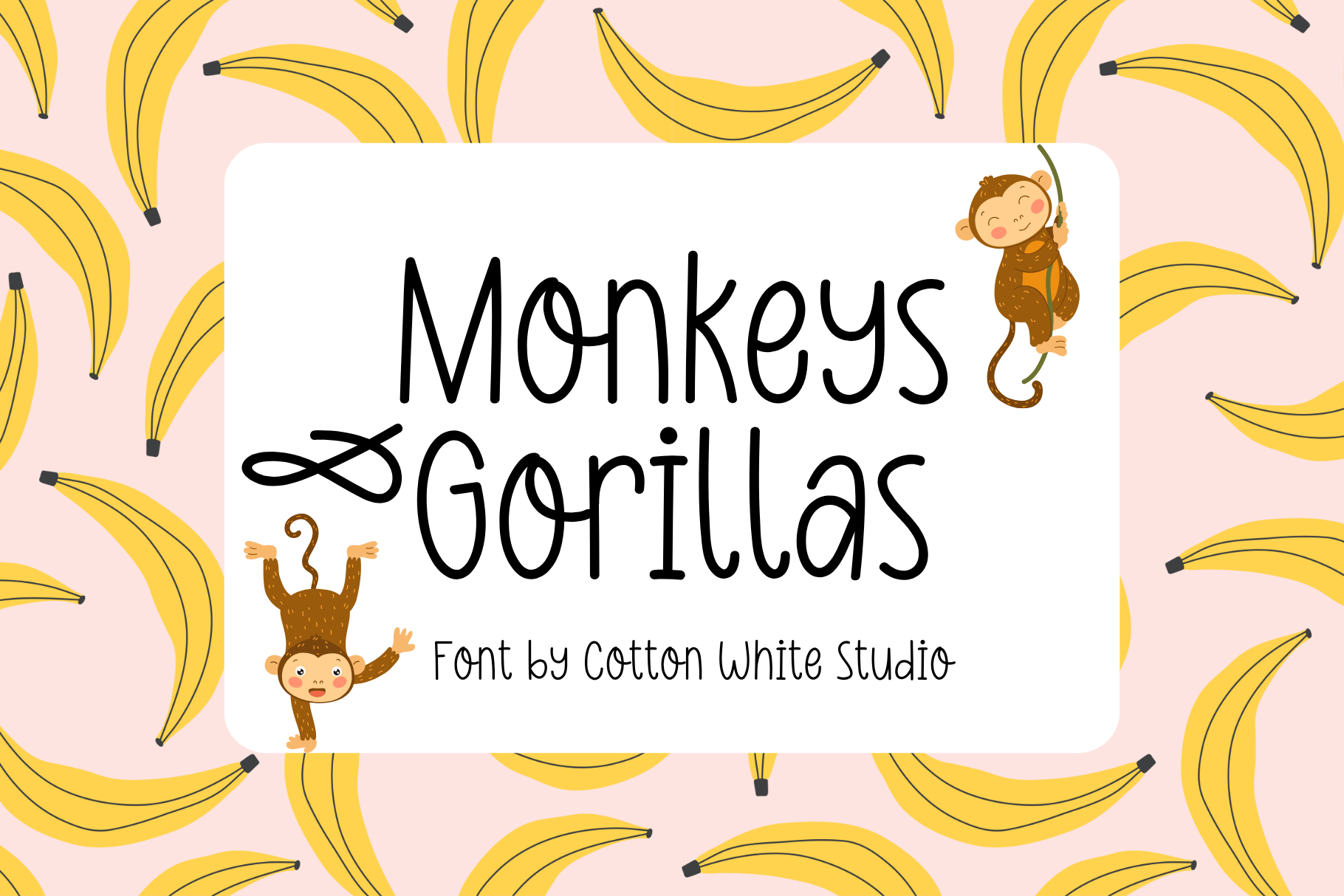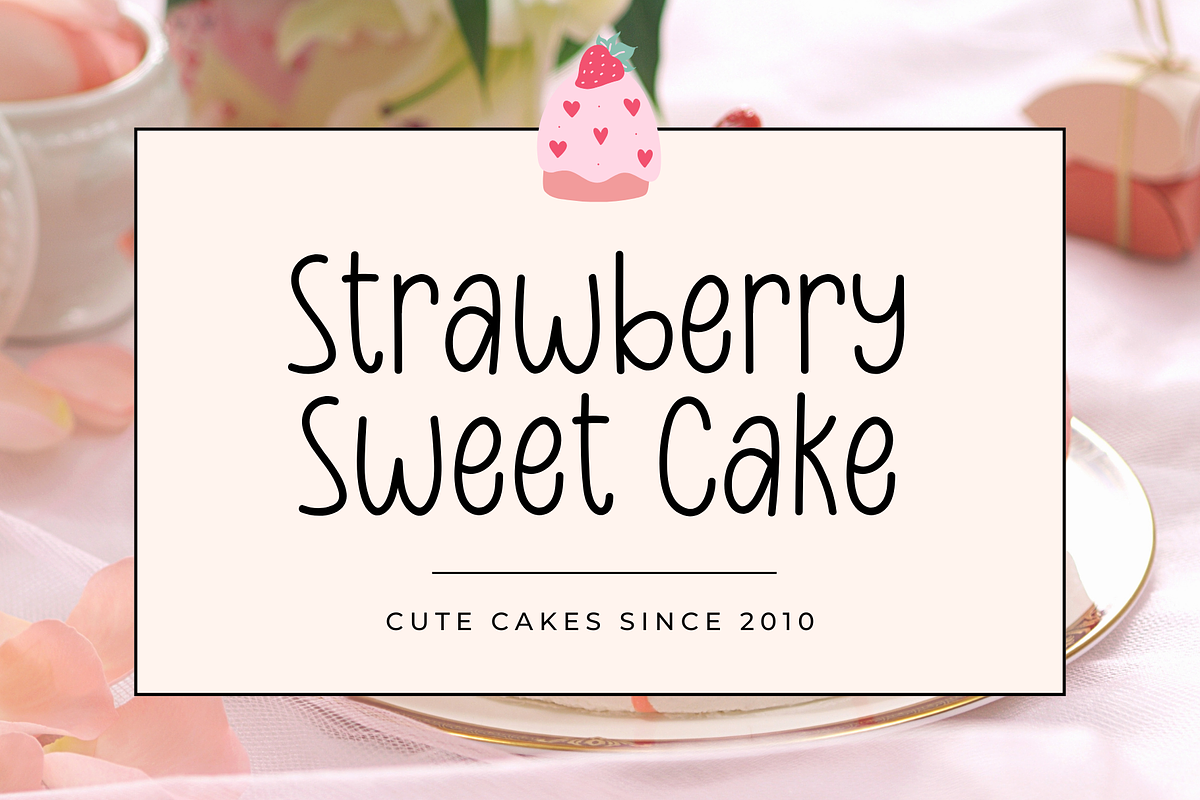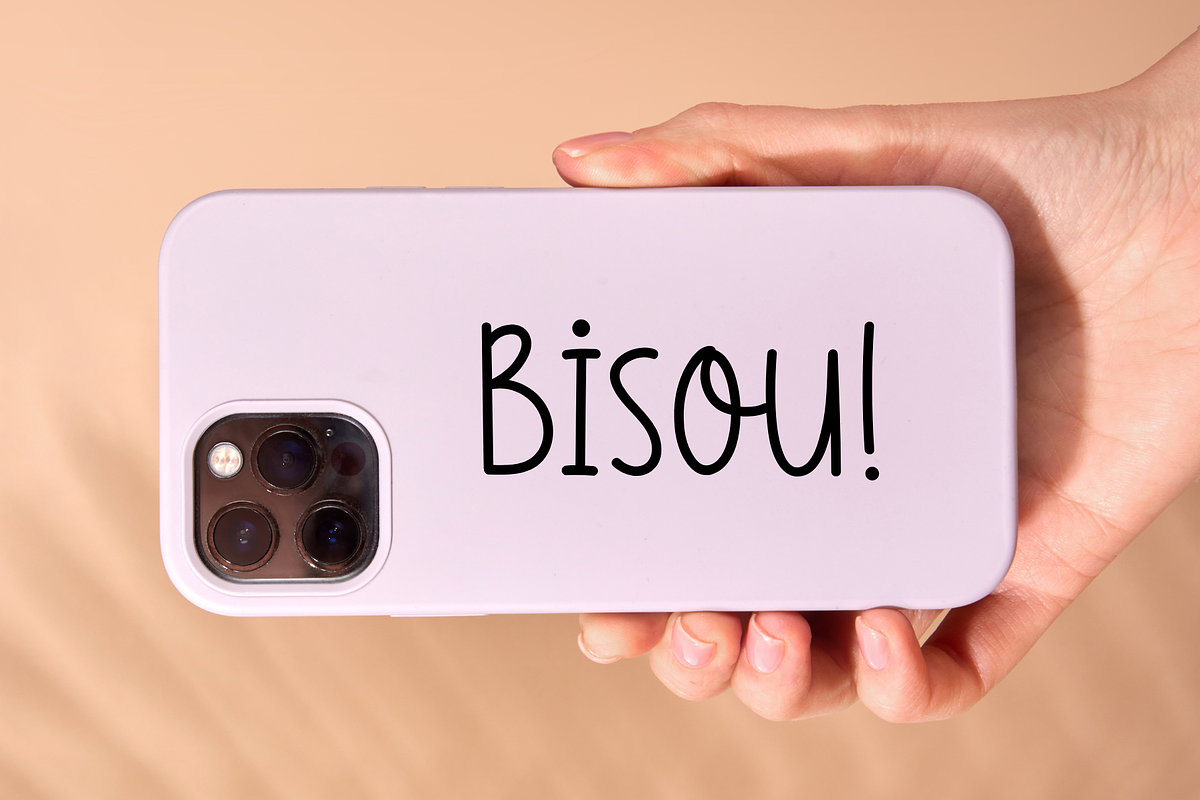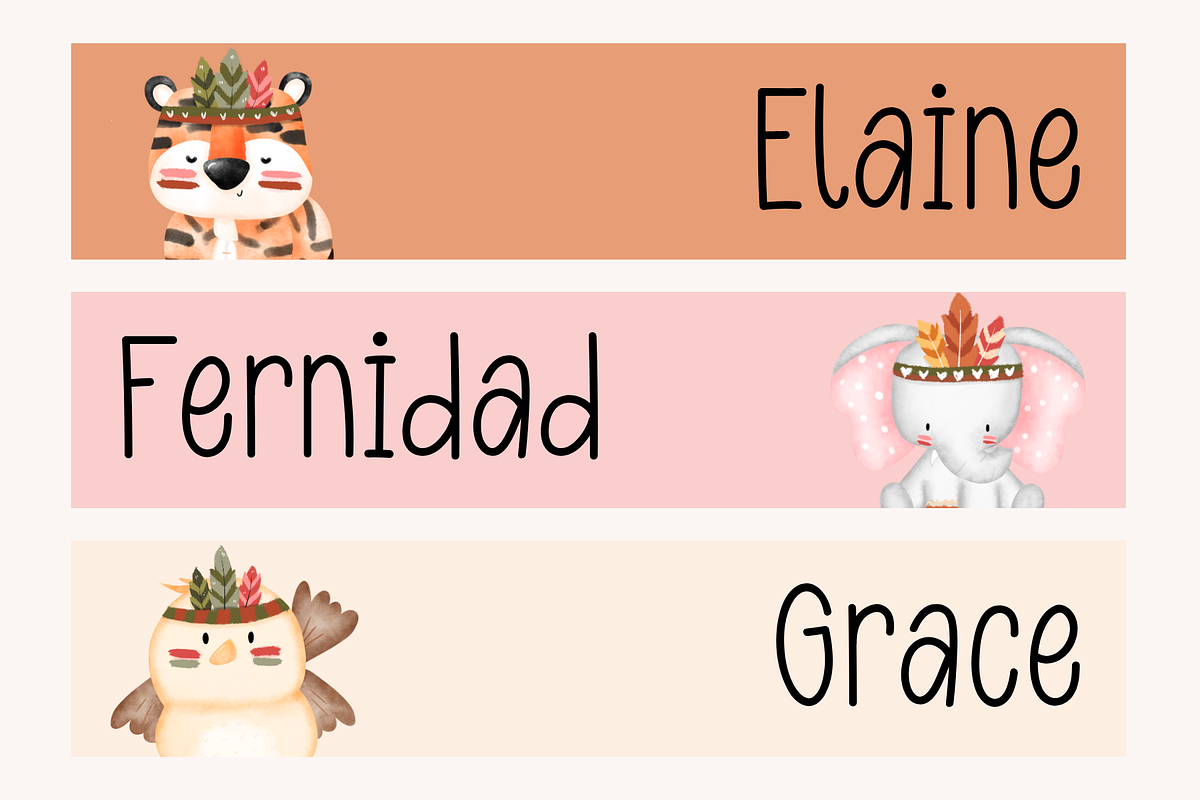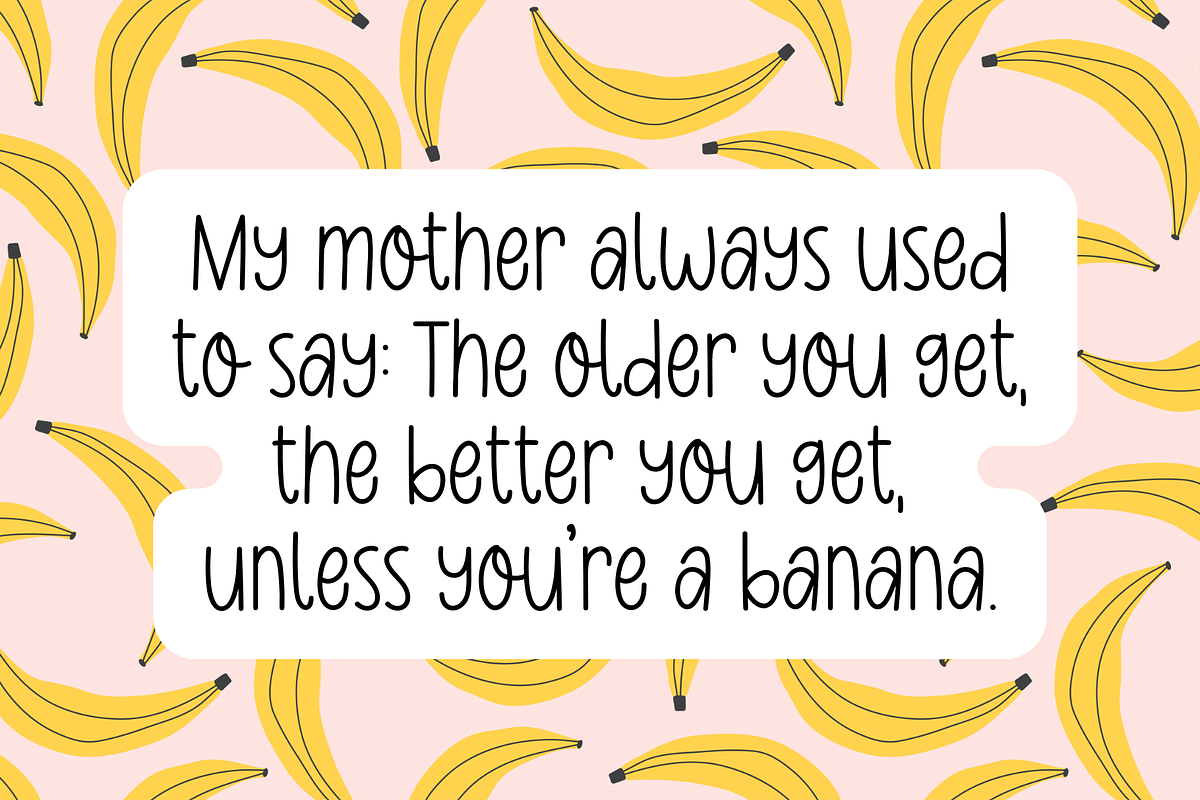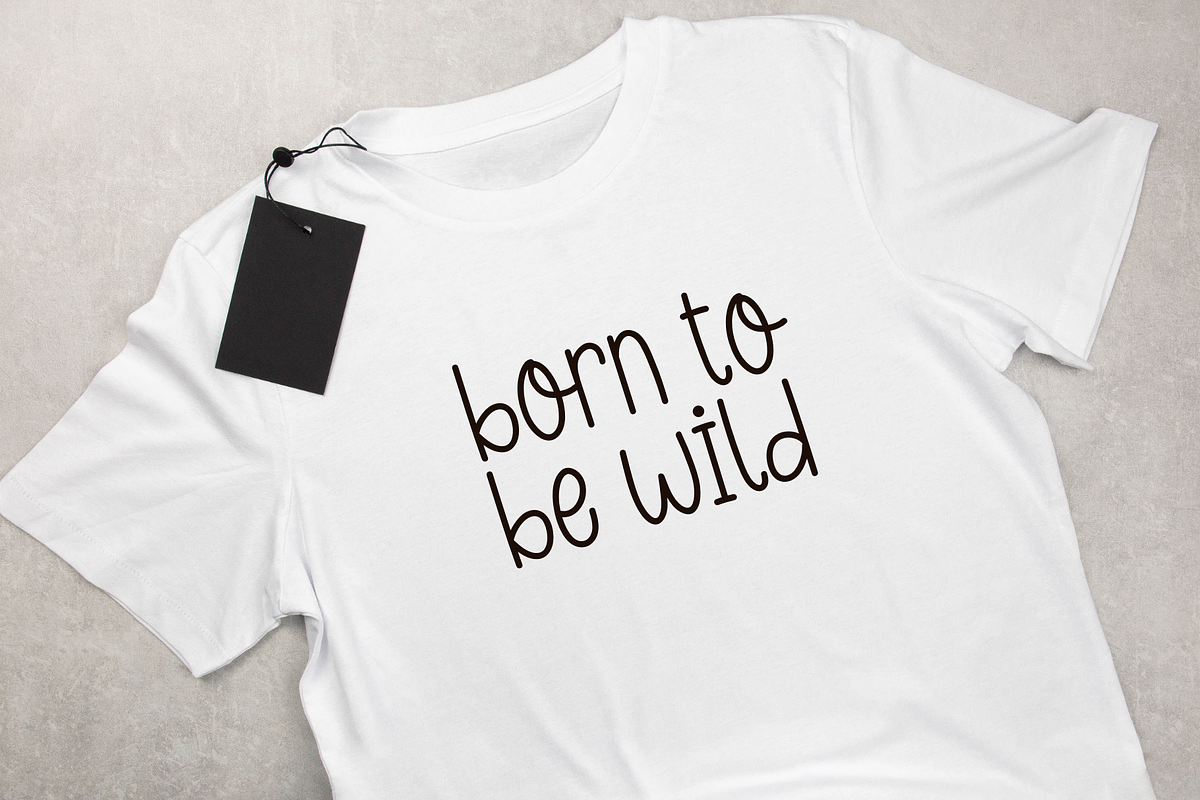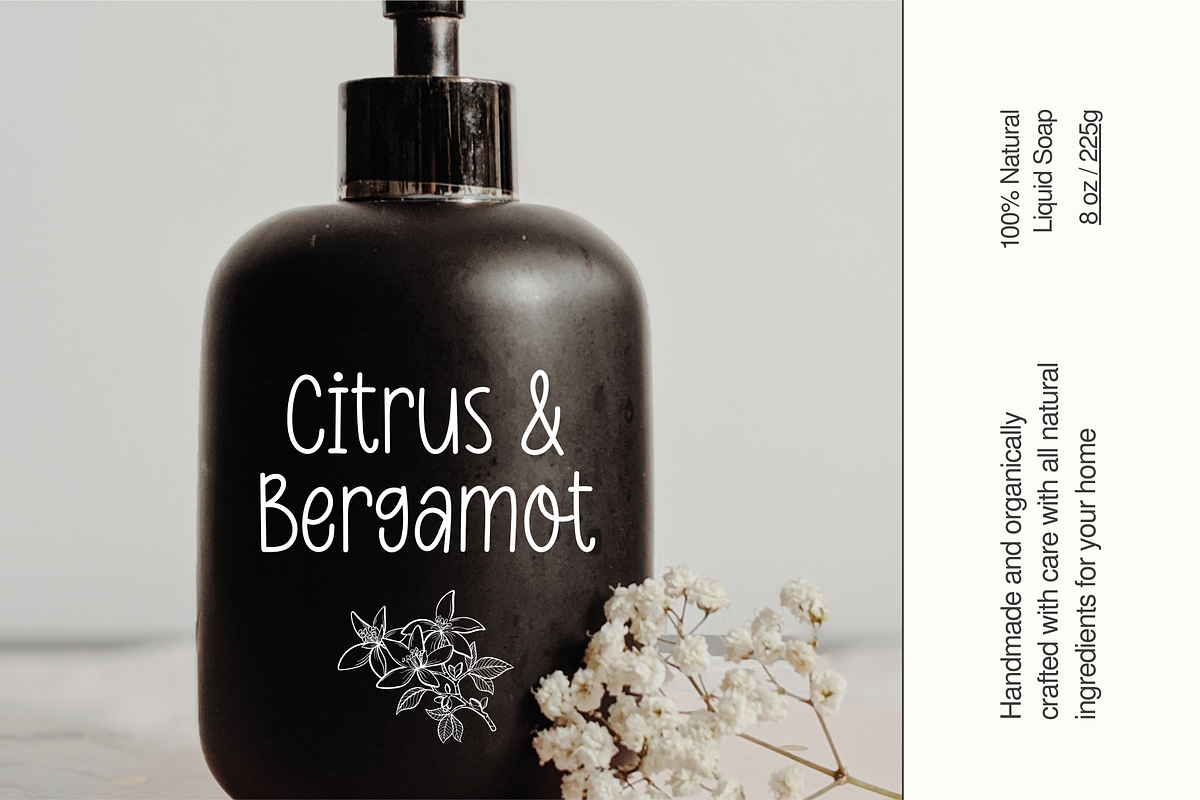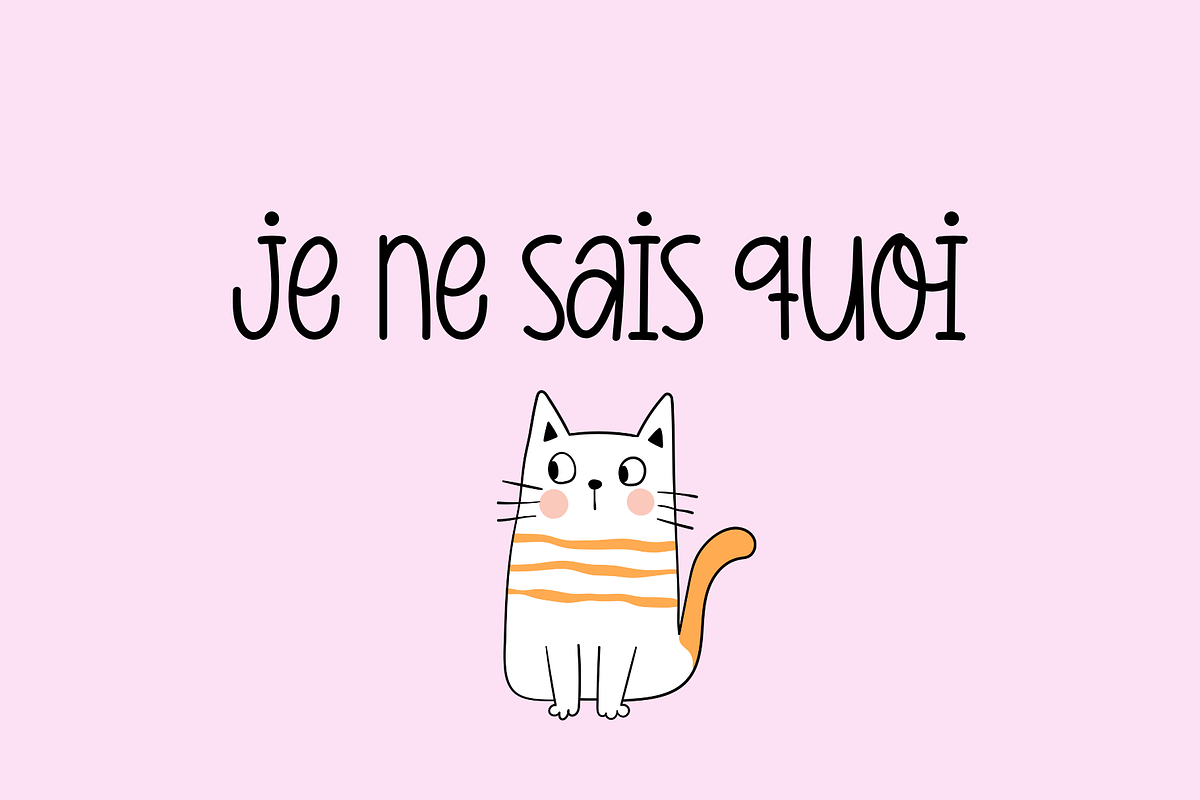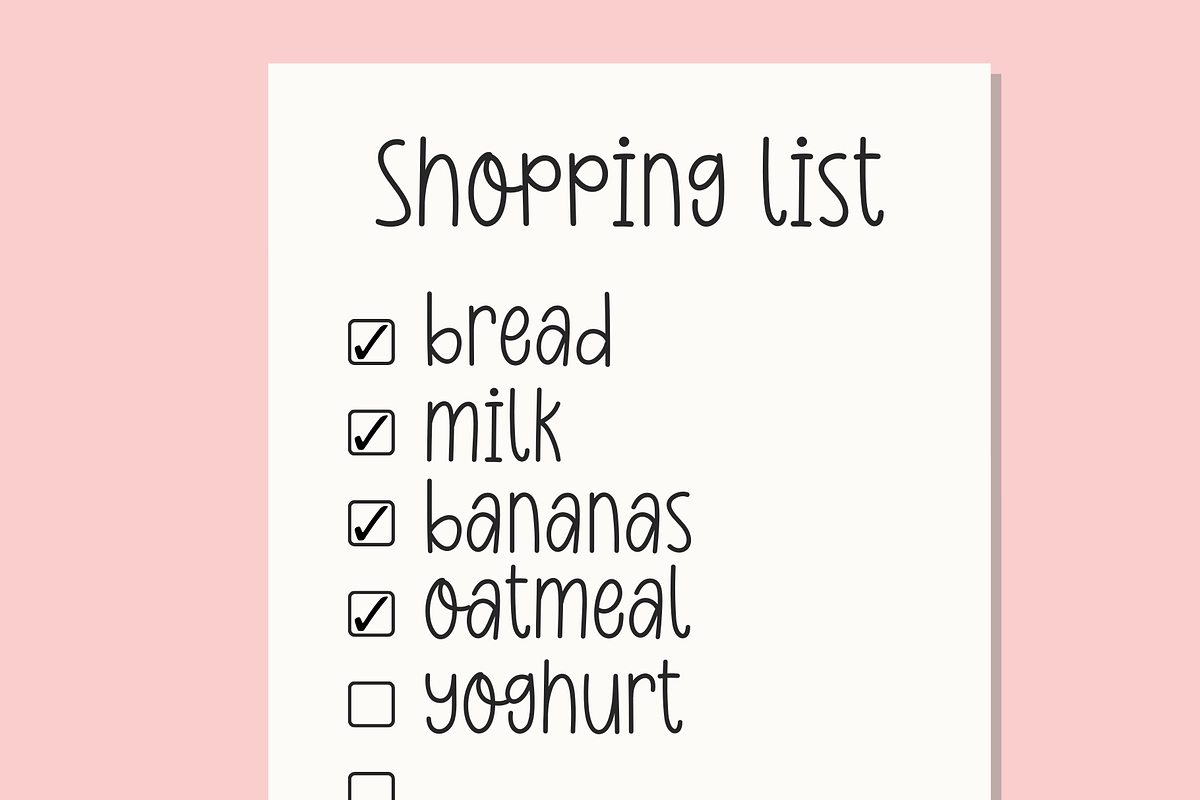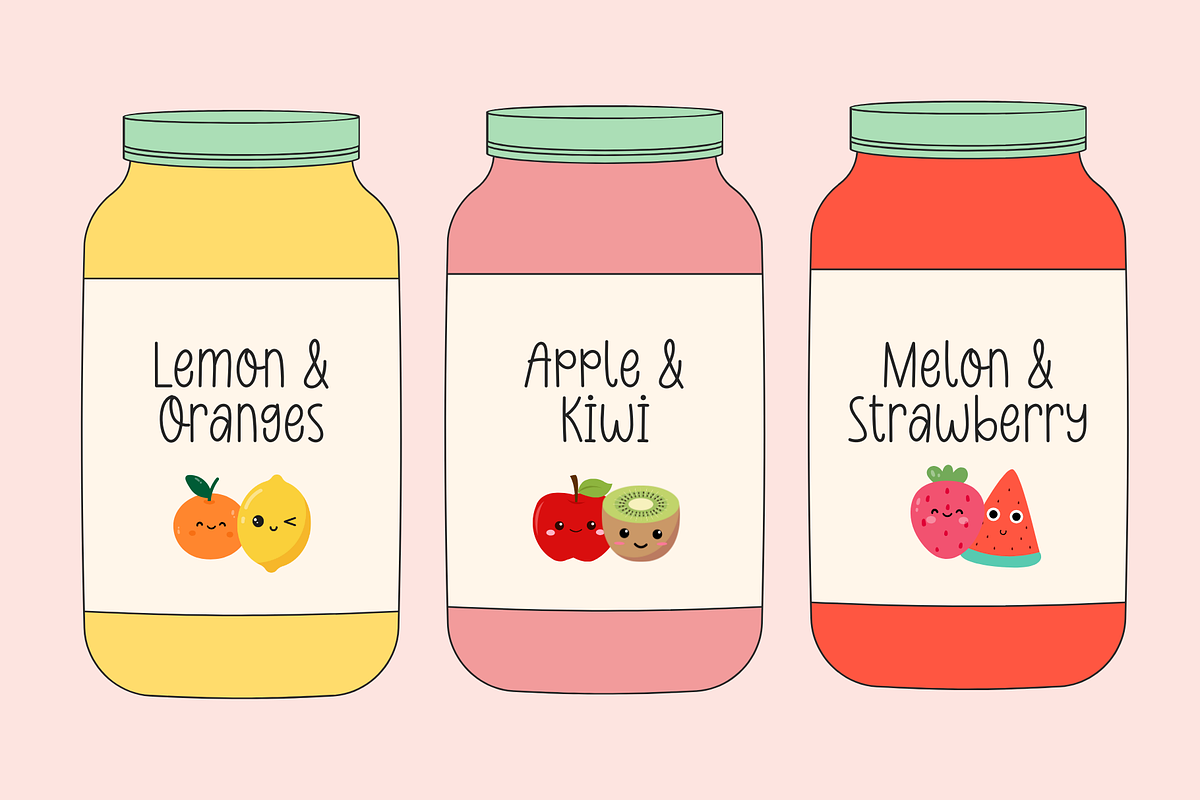
Monkeys & Gorillas Handritten Font
A cute and a little weird font, perfect to jazz up your digital planner, journal, invitations, note-taking, or anything that requires a handwriting look.